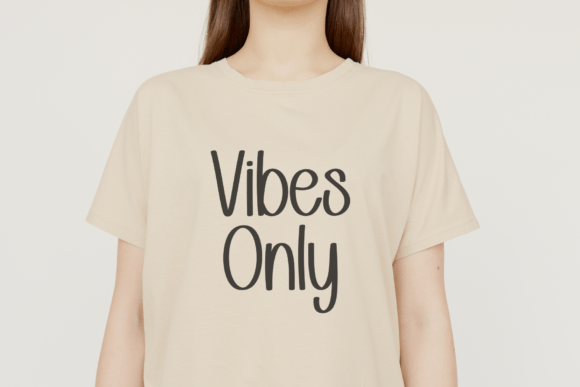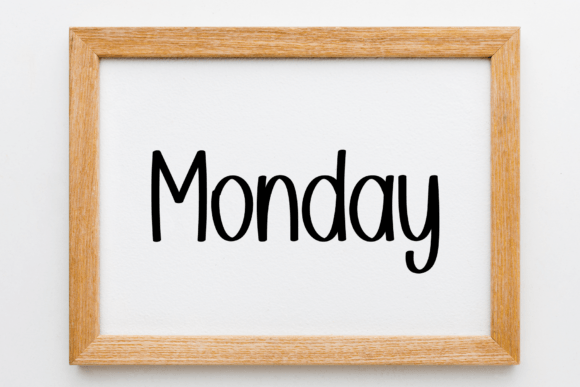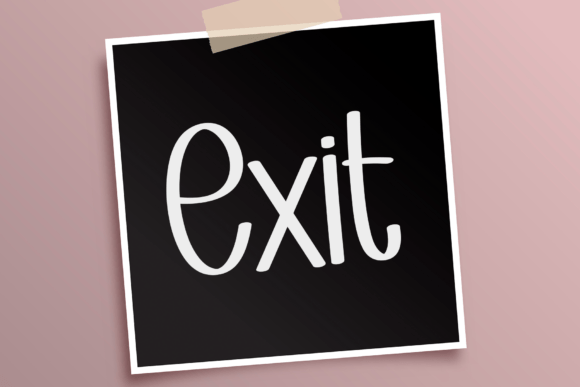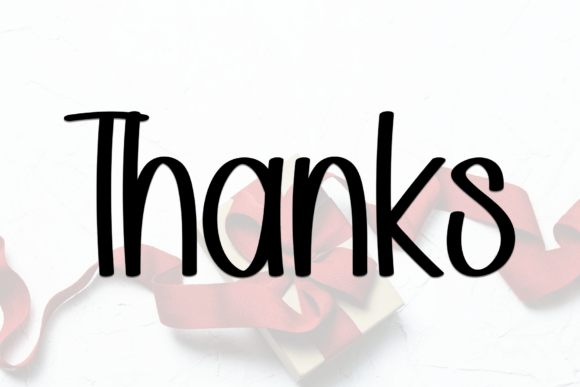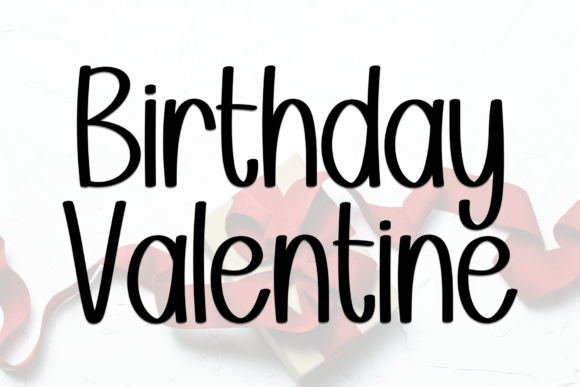
The Birth of a Perfect Font: A Designer’s Love Affair with Birthday Valentine
I’ll never forget the time I was working on a wedding project, and my client asked for a font that was both elegant and casual. I scoured the internet, tried countless fonts, but nothing seemed quite right. That was until I stumbled upon Birthday Valentine, a handwritten font that looked like it was drawn with a marker. It was love at first sight! 💕
With its relaxed and sporty feel, Birthday Valentine quickly became my go-to font for a variety of design projects. From branding and logos to wedding supplies and greeting cards, this font has proven to be a versatile and stylish choice. In this article, I’ll share my honest review of Birthday Valentine, provide a practical guide on how to use it, and explore similar fonts that you might enjoy.
An Honest Review of Birthday Valentine
- 💯 The font’s unique, hand-drawn feel adds a touch of personality to any design
- 🎨 It’s perfect for creating a luxurious and elegant look that’s still casual and approachable
- 🖌️ The font’s versatility makes it suitable for a wide range of design projects, from branding to marketing promotions
- 👍 It’s easy to read and works well in both large and small sizes
While Birthday Valentine is an amazing font, it’s not perfect. Here are a few things to keep in mind:
- 🤔 The font can be a bit quirky when used in all caps, so it’s best to use it in title case or mixed case
- ⚠️ Some characters, like the ampersand (&), can be a bit inconsistent in terms of style
The Designer Inspiration Behind Birthday Valentine
While the true story behind Birthday Valentine remains a mystery, it’s easy to imagine that the designer was inspired by the world of handwriting and illustration. Perhaps they wanted to create a font that captured the feeling of writing with a marker, with all its quirks and imperfections. Whatever the inspiration, Birthday Valentine is a true gem that deserves to be celebrated.
| Font Name | Birthday Valentine Font |
| Author | KC Production |
Q: What type of designs is Birthday Valentine best suited for?
A: Birthday Valentine is a versatile font that’s suitable for a wide range of design projects, from branding and logos to wedding supplies and greeting cards.
Q: Is Birthday Valentine a difficult font to read?
A: No, Birthday Valentine is a clear and easy-to-read font that’s perfect for use in both large and small sizes.